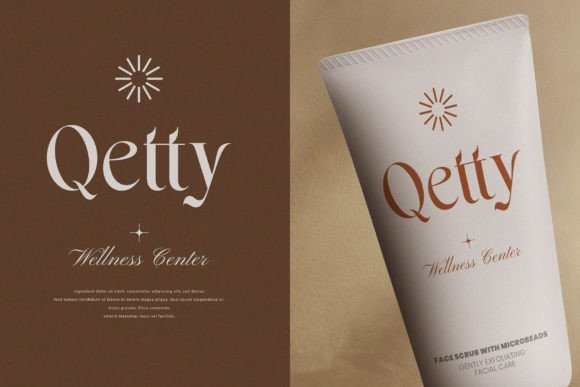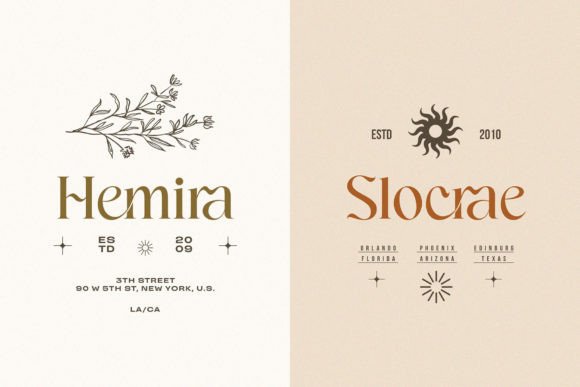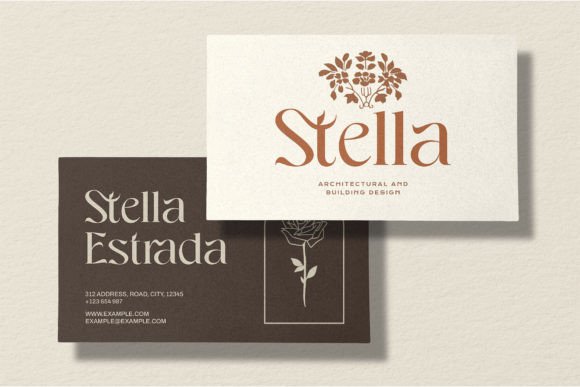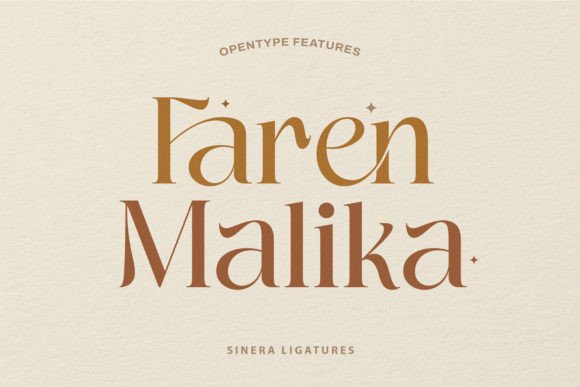
Introduction to Sinera Font
Have you ever been in the midst of a creative project, pouring over design options, and suddenly stumbled upon that one perfect font that elevates your entire vision? For designers, this moment is a game-changer – and that’s exactly what the Sinera Font promises to deliver.
With its sleek, minimalist aesthetic and smooth connecting lines, this high-quality font is the ultimate design resource for anyone looking to add a touch of elegance to their work. Whether you’re working on a magazine, product packaging, or even a wedding invitation, the Sinera Font is sure to provide a luxurious feel that will leave a lasting impression.
Key Features of Sinera Font
- High-quality design resource for creative projects, ideal for logos, branding, and typography.
- Comes with a transparent background, allowing for seamless integration with any design.
- Includes a range of font sizes, from 12pt to 72pt, to suit various design requirements.
- Unique characteristics include elegant lines, sophisticated curves, and a modern aesthetic, making it perfect for high-end designs.
Honest Review: Sinera Font
I recently stumbled upon the Sinera Font while searching for a high-quality design resource for a creative project. I was excited to give it a try and see how it would perform.
- The Sinera Font is incredibly versatile and can be used for a wide range of creative projects.
- The transparent background makes it easy to layer and combine with other design elements.
- The Sinera Font may not be the best choice for projects that require a more formal or traditional look.
- The font can be a bit tricky to customize, especially for designers who are not familiar with font editing software.
Overall, I was impressed with the Sinera Font and would definitely consider using it for future creative projects. While it may have some limitations, its high quality and versatility make it a valuable addition to any designer’s toolkit.
Tips for Getting the Most Out of Sinera Font
For the best results, use the Sinera Font on a transparent background to create a clean and modern look. Experiment with different font sizes and styles to add visual interest to your project.
The Sinera Font is perfect for a wide range of creative projects, including logos, business cards, social media graphics, and presentations.